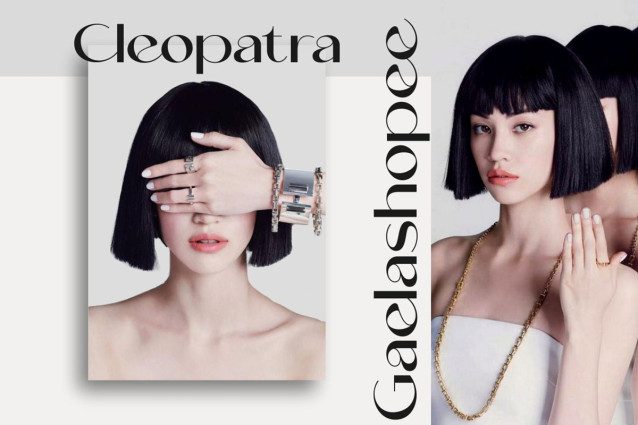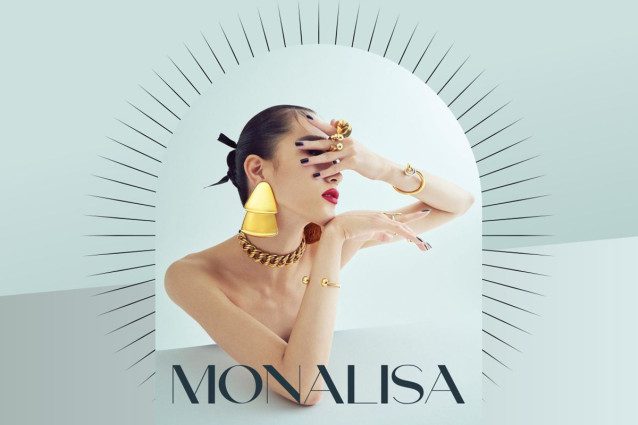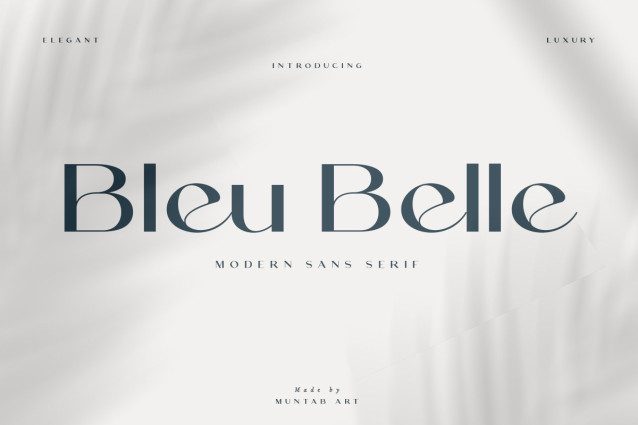
Bleu Belle Font
Bleu Belle Font includes uppercase letters, numerals, a large range of punctuation. Modern Sans Serif font with Elegant style. Created for poster, web design, branding, illustrations, badges and some other works.